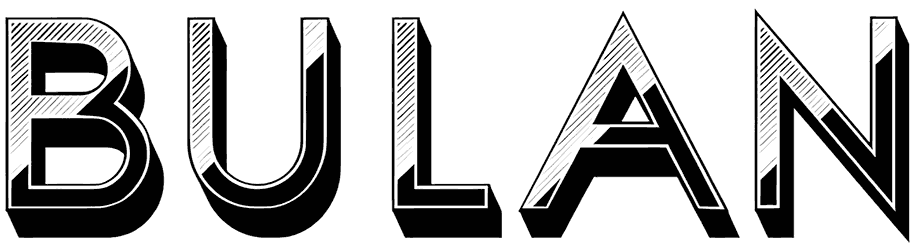
Bulan Font
Everything you need to promote your new project and link it to the future is gathered in Bulan. This techno font has a mirror and transparent appearance that reflects your power in implementing new ideas. The sharp angle…
Everything you need to promote your new project and link it to the future is gathered in Bulan. This techno font has a mirror and transparent appearance that reflects your power in implementing new ideas.
The sharp angles and its metallic design bring a futuristic feel to this sci-fi font that penetrates deep into the audience’s mind. This shadow font is your ticket to success in poster design, computer games, and advertising, regardless of the lack of lowercase letters.